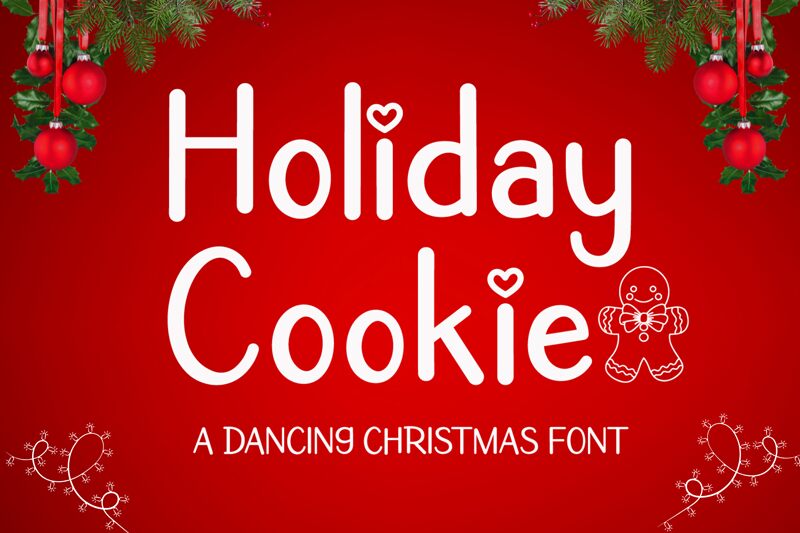
Holiday Cookie font by AEN Creative Studio is a free font that captures the joyful spirit of the festive season. Whether it’s New Year’s Eve or Christmas, the typeface embodies a nostalgic and cheerful mood everyone loves to experience in the holiday season. Each letter wears a friendly appearance that invites people in; perfect for Christmas cards, gift packaging, or holiday invitations.
The informal appearance of Holiday Cookie makes it suitable for diverse fields of application. You can consider it for advertising material, branding, product packaging, greeting cards, wall art, book covers, and other festive projects. Write and edit both digital and printed headlines for websites, banners, store decks, blog banners… Let your creativity run wild!